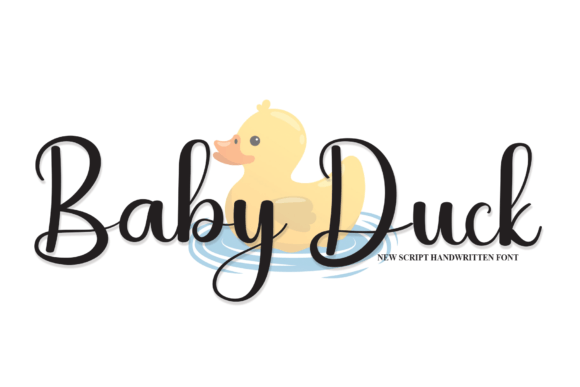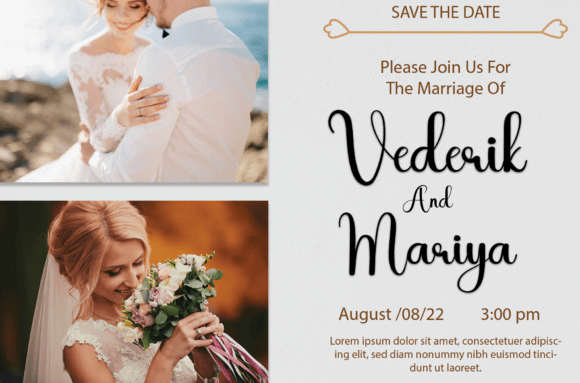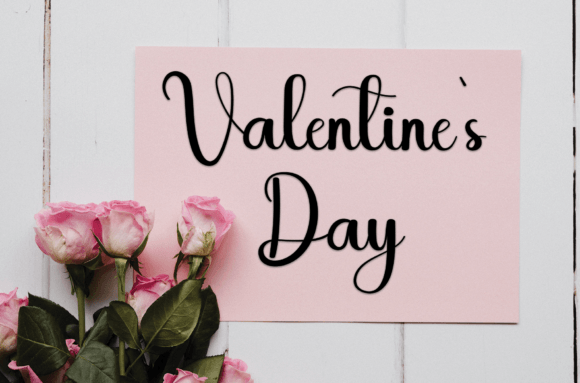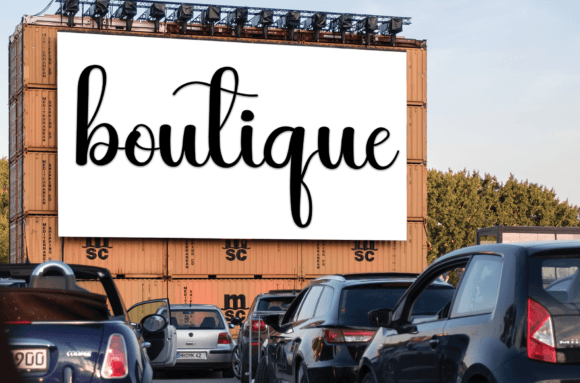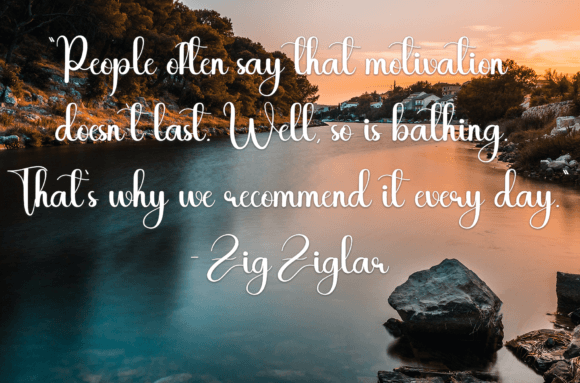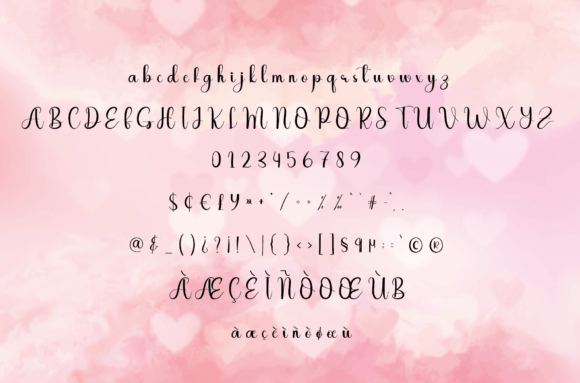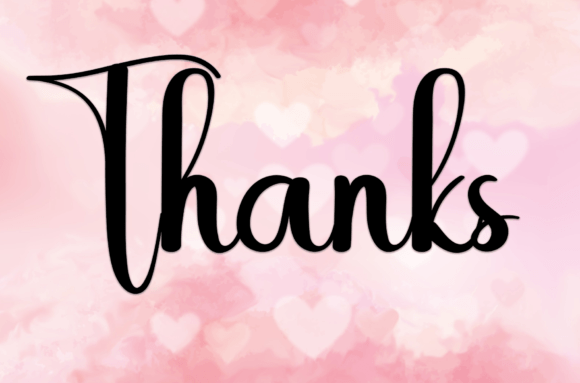
The Perfect Font for a Heartfelt Touch
As a designer, you’ve probably been in a situation where you need to add a personal touch to a project. Maybe it’s a wedding invitation, a birthday card, or a social media post. Whatever the case, you want to convey a sense of warmth and friendliness that speaks directly to your audience.
That’s where Baby Duck Font comes in – a sweet and friendly handwritten font that’s perfect for adding a lovely touch to any design. Its fun and relaxed vibe makes it ideal for projects that require a personal and approachable tone. Whether you’re a seasoned designer or a beginner, Baby Duck Font is a valuable addition to your toolkit, offering a unique and creative way to express yourself.
Baby Duck Font Key Features
- Character Set: The font includes a comprehensive set of characters, including uppercase and lowercase letters, numbers, punctuation marks, and special characters, making it suitable for various types of text.
- Unique Characteristics: Baby Duck Font features a distinctive, playful design with rounded edges and soft lines, giving it a cute and endearing appearance.
- Language Support: Baby Duck Font supports multiple languages, including English, Spanish, French, German, Italian, and many others, making it a versatile choice for international applications.
Review of Baby Duck Font
Overall, I think the Baby Duck Font has a lot of charm and can be a great choice for certain projects. ✨ The font’s quirky, hand-drawn feel and playful letterforms can add a lot of personality to a design.
The font’s best feature is its versatility. ✨ It can be used for a wide range of projects, from children’s books and educational materials to advertising and branding. The font is also relatively easy to read, making it suitable for body text as well as headings.
- ⚠️ The font’s lack of consistency in its letterforms can make it difficult to use in long blocks of text. Some letters may appear more childlike or playful than others, which can create a disjointed feel.
- ⚠️ The font may not be suitable for formal or professional projects, as it can come across as too casual or playful.
Overall, I think the Baby Duck Font is a fun and unique choice for certain projects. However, it’s not without its limitations, and designers should be aware of these before using it in their designs.
Getting the Most Out of Baby Duck Font
To get the most out of the Baby Duck Font, use it to create whimsical and playful designs. The font is perfect for creating children’s book illustrations, nursery decor, and other projects that require a cute and friendly aesthetic.
The Baby Duck Font is commonly used for:
- Nursery decor and signage
- Custom graphics and illustrations
For optimal readability, we recommend using a font size between 14px and 18px, with a line height of 1.5 to 2 times the font size. This will ensure that the text is clear and easy to read, even at smaller sizes.